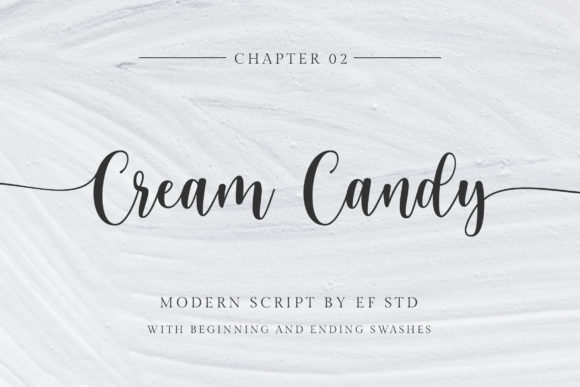
Cream Candy Font is the ultimate solution for all your font needs! Created by the talented Ef Studio, this stunning script font is perfect for those who are looking to add a touch of elegance and charm to their design projects.
With its intricate and beautiful swashes, Cream Candy Font is guaranteed to make your designs stand out from the crowd. Whether you're working on a banner, Cricut project, or any other creative endeavor, this font is the best choice to capture attention and leave a lasting impression.
Featuring 22 captivating ligatures, Cream Candy Font offers an endless array of possibilities. These ligatures effortlessly enhance the beauty of your text, taking it to a whole new level. Imagine the impact of these unique and artistic elements on your next project!
But Cream Candy Font isn't just visually stunning; it's also incredibly versatile. Its script style lends itself perfectly to various design themes, from elegant wedding invitations to playful party decorations. Let your creativity run wild as you explore the endless possibilities this font has to offer.
When you download Cream Candy Font, you're not just getting a font; you're getting a powerful tool that will transform your designs into works of art. Its smooth lines and attention to detail make it a must-have for any designer or creative enthusiast.
Don't settle for ordinary fonts that fail to captivate and inspire. Choose Cream Candy Font for its unique combination of beauty, elegance, and versatility. Stand out from the crowd and make a lasting impression on your audience.